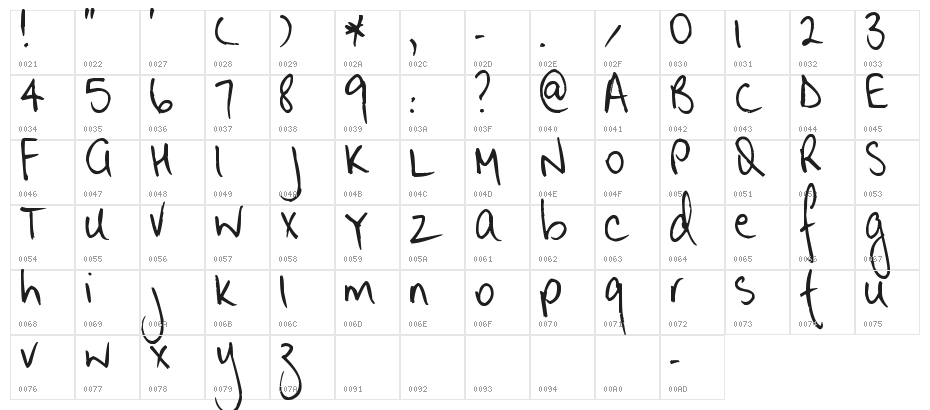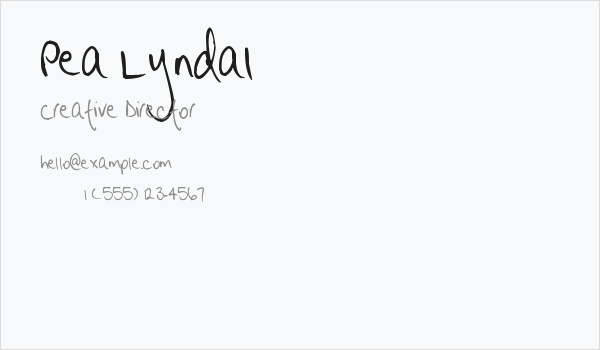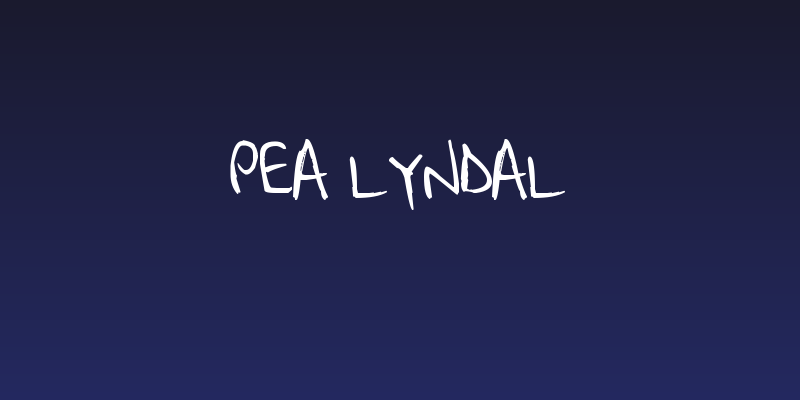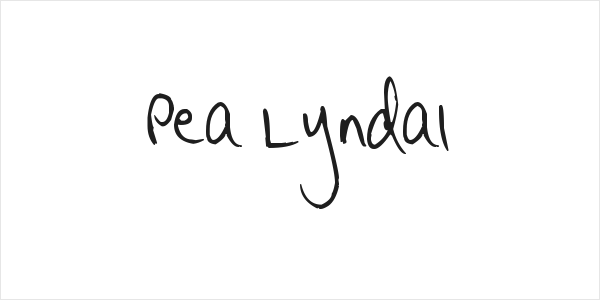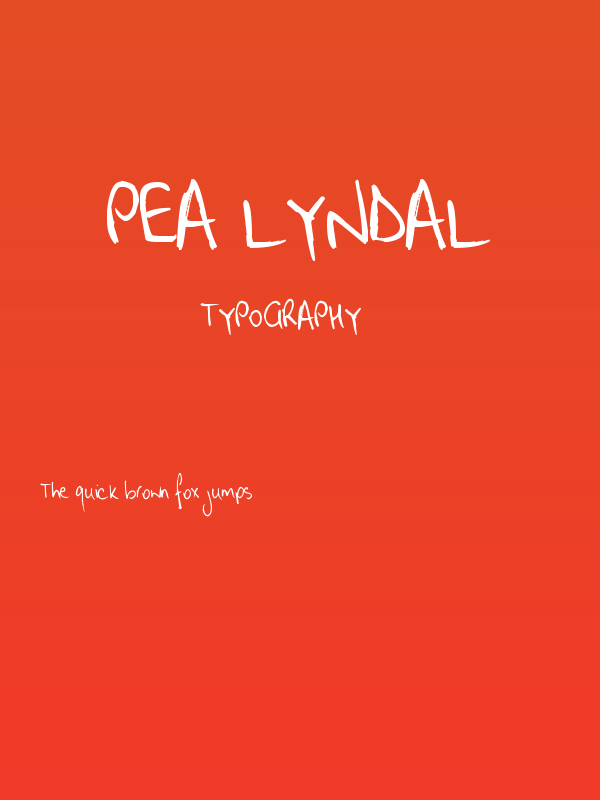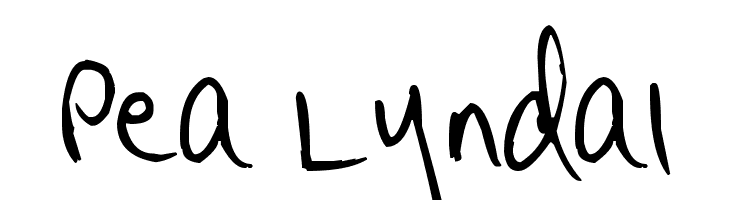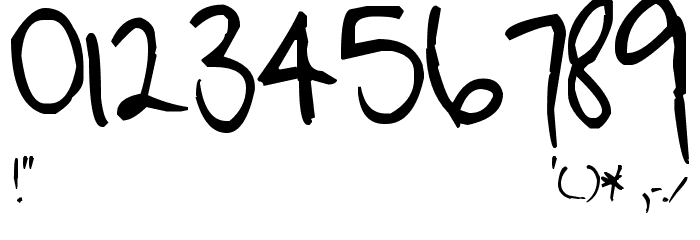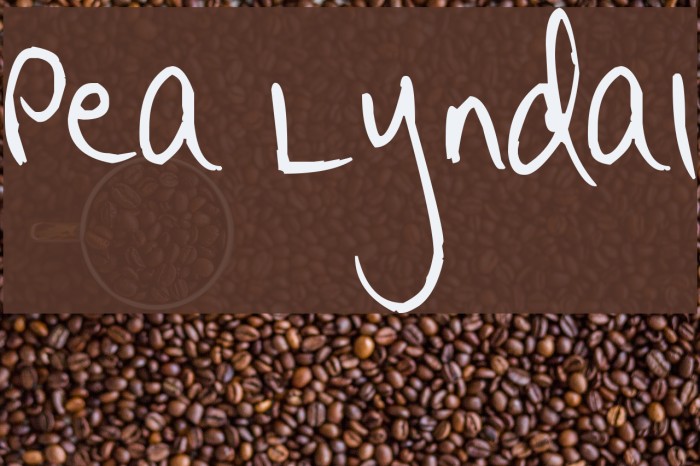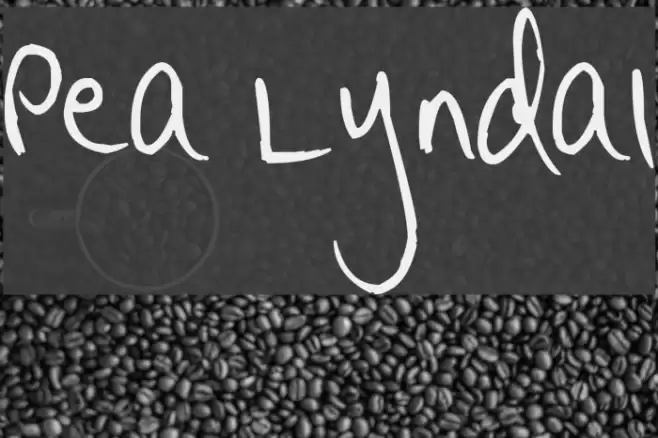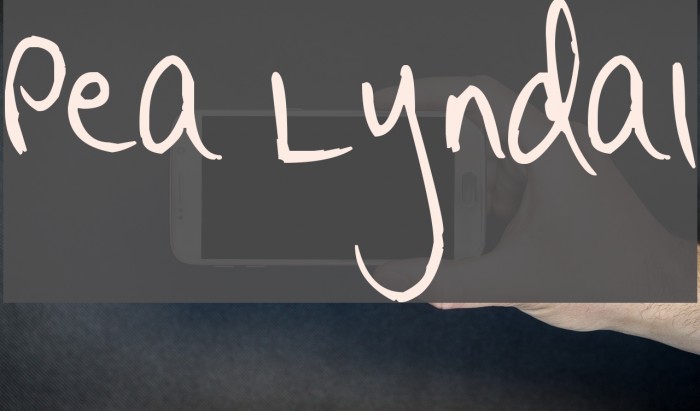
Pea Lyndal Font
| Stile generale | Casual |
| Caso d'uso | Logos, Headlines, Creative projects |
| Progetti proposti | Ideal for personal notes, invitations, greeting cards, and creative projects that require a personal touch. |